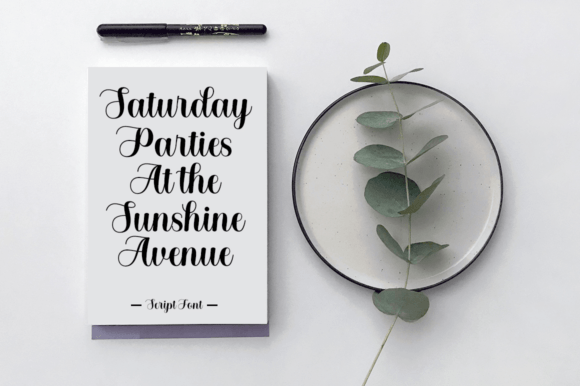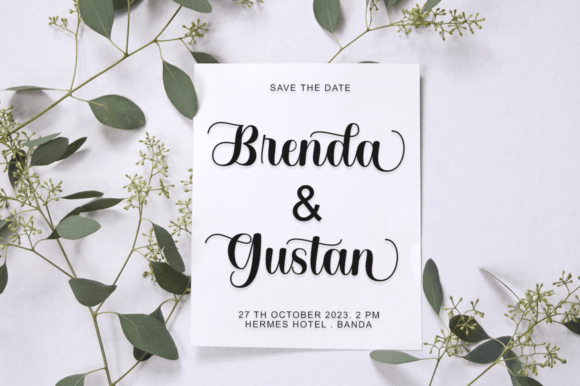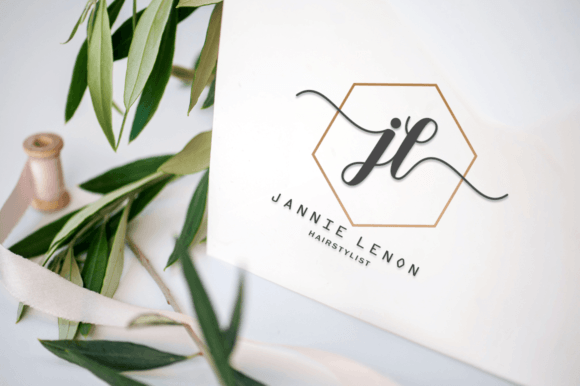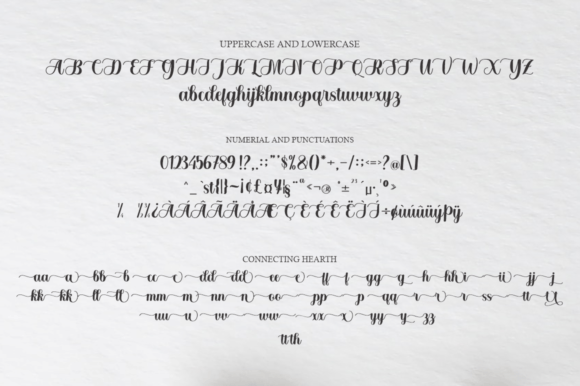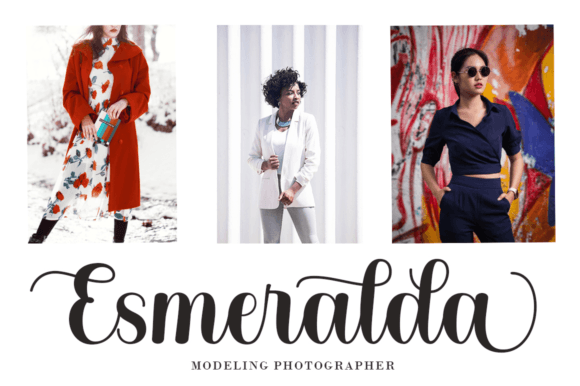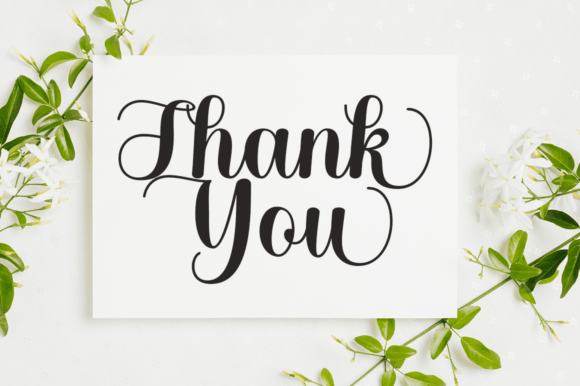
About Moonlight Font
“Moonlight” is not merely a font; it’s a work of art, an embodiment of elegance and style that transcends the boundaries of design. Its exquisite and stylish script seamlessly weaves together form and function, making it a captivating asset for any creative project.
Imagine your designs illuminated by the gentle glow of Moonlight, each letter crafted with precision and grace, enhancing the overall visual appeal. Whether you’re working on branding, packaging, invitations, posters, or any other creative endeavor, Moonlight becomes the soul of your composition, adding a touch of sophistication that captivates the viewer.
The font’s versatility knows no bounds; it adapts gracefully to any topic, infusing every creation with a sense of luxury and refinement. Whether you’re crafting a wedding invitation, designing a high-end fashion logo, or creating an artistic poster, Moonlight elevates your work to a realm of timeless beauty.
Moonlight isn’t just a font; it’s an experience—an experience that speaks of taste, class, and creativity. Its stylish curves and delicate strokes create a harmonious balance, making it a visual feast for the eyes. In a world where first impressions matter, Moonlight becomes your secret weapon, leaving a lasting mark on anyone who beholds your designs.
When you add Moonlight to your font library, you’re not just acquiring a typeface; you’re investing in inspiration. Its exquisite beauty sparks creativity, opening doors to endless possibilities. Moonlight becomes the brush that paints your imagination, the handwritten touch that transforms your concepts into masterpieces.
So, whether you’re a professional designer striving for perfection or an individual with a passion for aesthetics, Moonlight is your indispensable companion. It’s not just a font; it’s a journey—a journey into the world of elegance and style. Let Moonlight be the muse that guides your creativity and the exquisite touch that makes your creations truly extraordinary. With Moonlight, your designs are destined to shine brightly, illuminating the creative landscape with unmatched splendor.